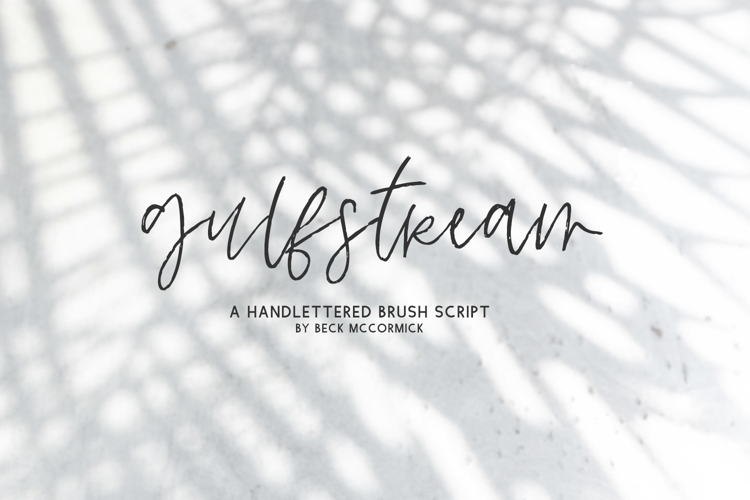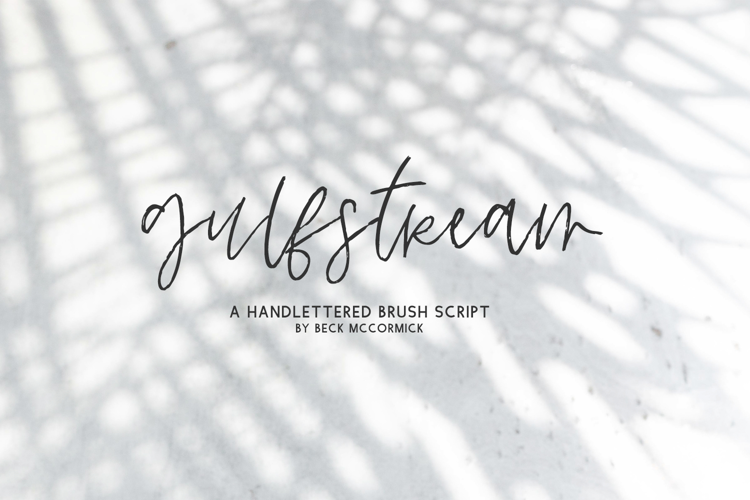
Introducing Gulfstream Script, a textured handwritten brush font.
Gulfstream is best for:
- website design + website accents, blog design
Gulfstream includes:
- 26 alternate lowercase characters
- 21 ligatures - ar, bb, ch, dd, ee, er, et, ff, gg, ir, it, ll, mm, nn, oo, or, pp, rr, ss, tt, ur